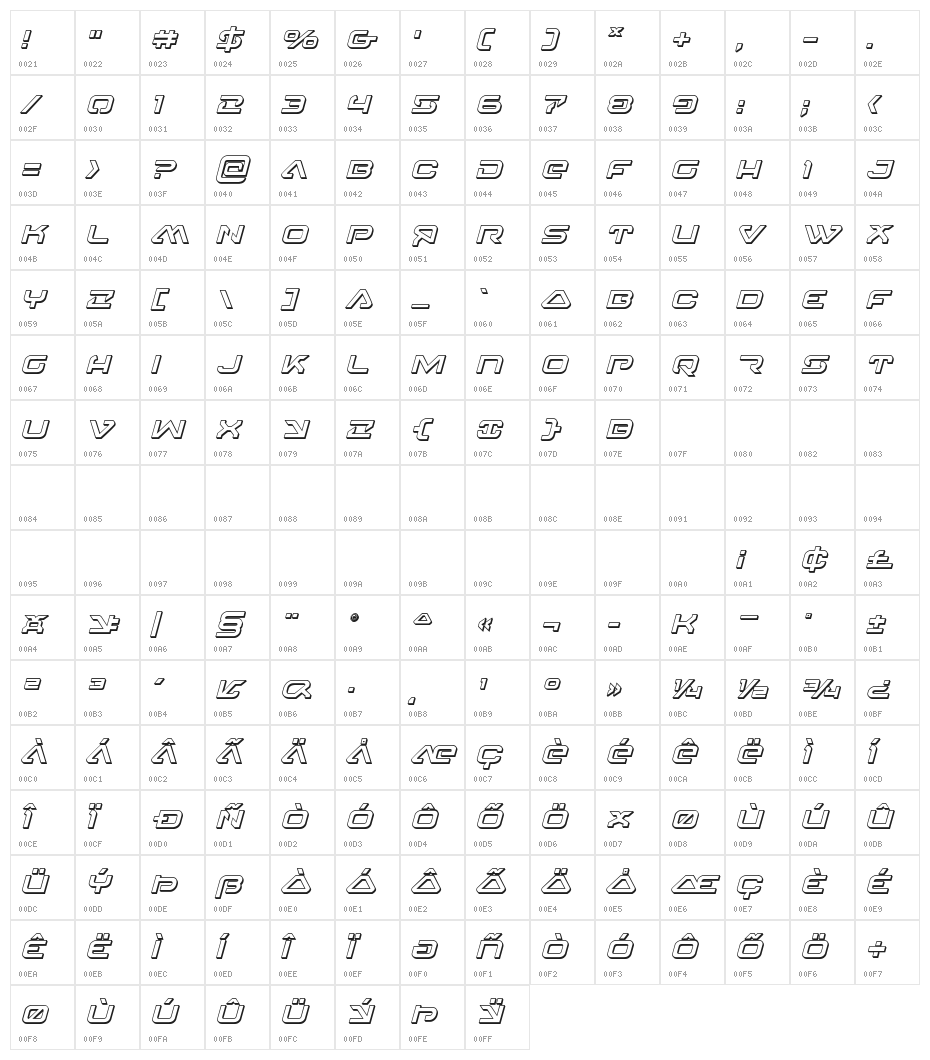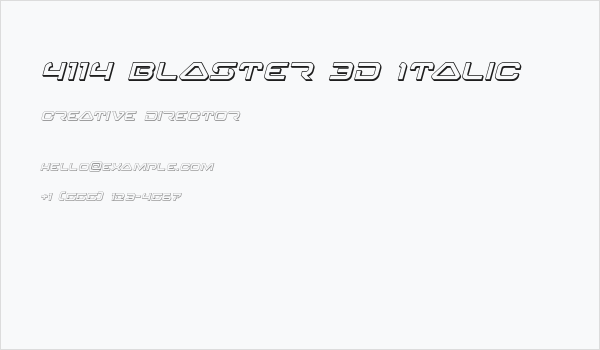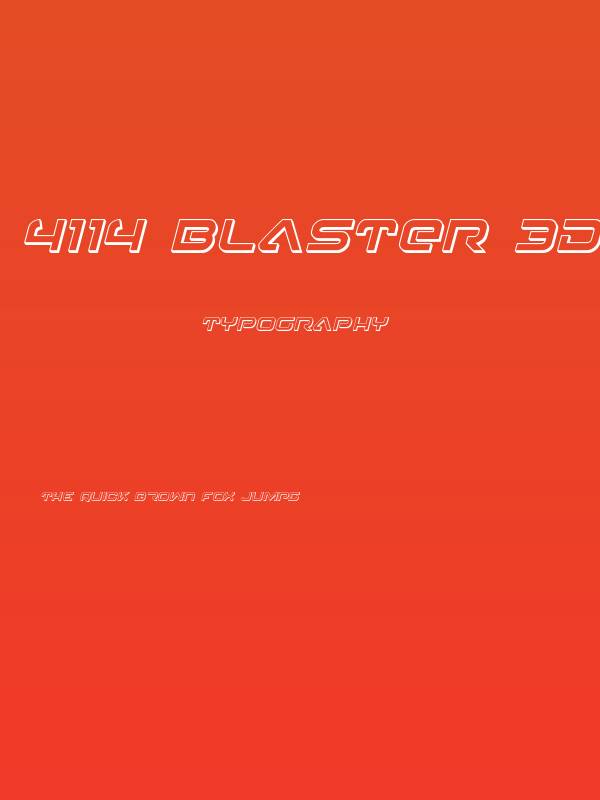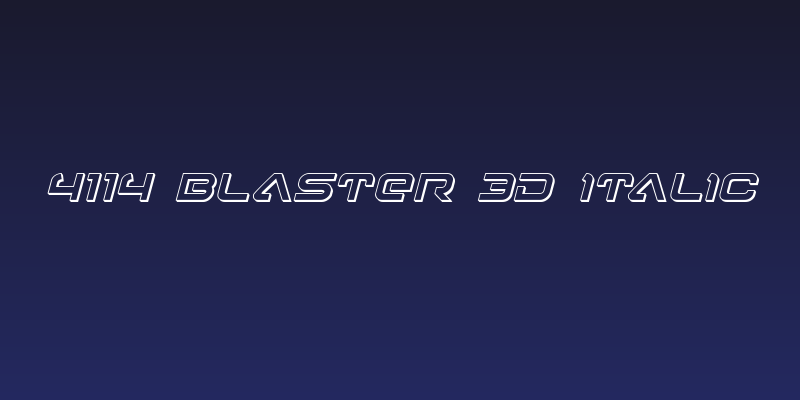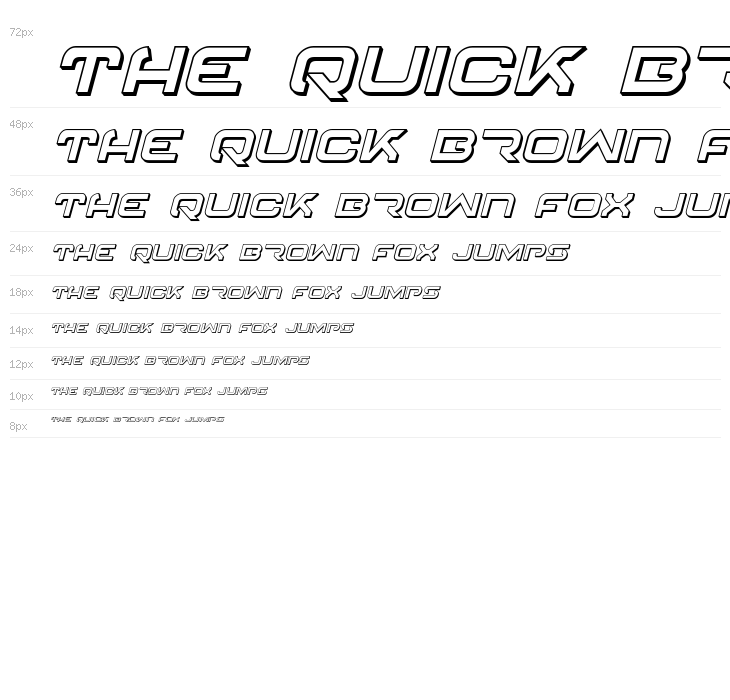
4114 Blaster 3D Italic Font
4114 Blaster 3D Italic Description
This font features a futuristic, three-dimensional design with a distinct italic slant. The characters are outlined, giving them a hollow appearance that enhances the 3D effect. The geometric shapes and sharp angles contribute to a modern and dynamic look, making it ideal for projects that require a sense of motion or technology. The uppercase and lowercase letters maintain consistent styling, while the numerals and special characters are designed to match the overall aesthetic. This font is perfect for creating eye-catching headlines, logos, or digital artwork.
| Proposed Projects | Ideal for sci-fi themed designs, tech company logos, video game titles, and digital art projects. |